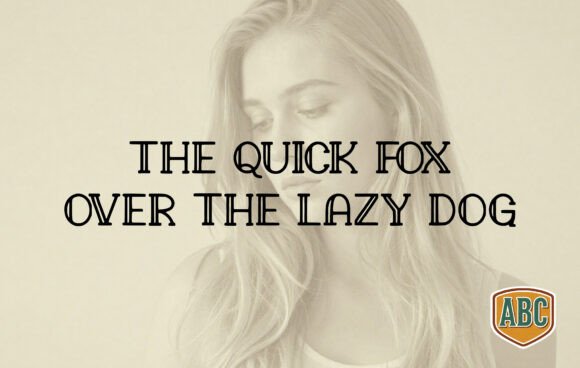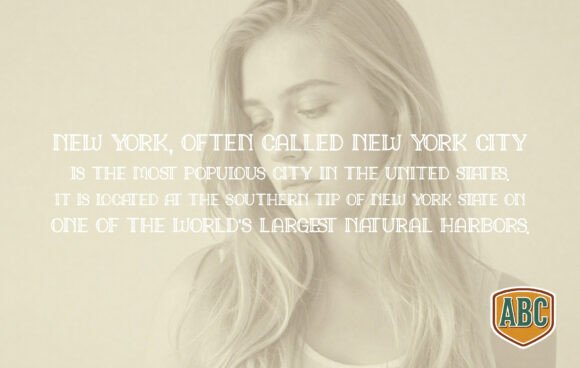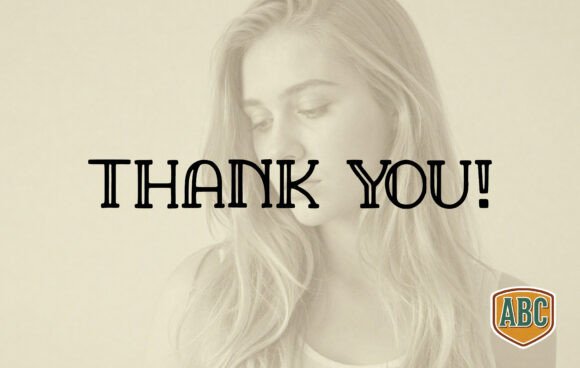
Unleash the Elegance of the Roaring Twenties
Imagine yourself sipping a classic cocktail in a swanky 1920s speakeasy, surrounded by the opulence of Art Deco architecture. As you gaze up at the intricately designed ceiling, the sound of a typewriter clacking away in the background, you can almost hear the whispers of a bygone era. This is the world that the Ivory Font brings to life, a sophisticated and luxurious display typeface that exudes the glamour of a bygone age.
The Ivory Font is more than just a pretty face – it’s a powerful tool for designers looking to add a touch of classic sophistication to their projects. With its double-line strokes and geometric precision, this font is perfect for creating a sense of architectural structure and glamour, making it a must-have for any designer looking to create high-end branding, packaging, or typography.
Ivory Font Key Features
- Font Family: Ivory is a serif font family that is part of the Linotype Library.
- Size: The font family includes a range of font sizes, from 6-point to 72-point.
- Resolution: Designed for high-resolution printing and digital display, with clear readability at 300 DPI and above.
- Unique Characteristics: Ivory is known for its elegant, refined appearance, making it suitable for formal and professional applications, such as business cards, invitations, and publications.
- Language Support: Supports a wide range of languages, including Latin-based languages, Greek, and Cyrillic.
Ivory Font Review
I recently had the chance to work with the Ivory Font, and I must say it’s a decent option for designers looking for a classic, elegant feel. Here’s what I liked about it:
- ✨ Timeless aesthetic: The Ivory Font exudes a sense of sophistication and refinement, making it perfect for high-end branding, luxury products, or anything that requires a touch of class.
- ✨ Versatility: While it’s often associated with formal or traditional designs, the Ivory Font can also work well in more modern or minimalist contexts, especially when paired with the right color scheme.
- ⚠️ Limited versatility in digital: The Ivory Font might not be the best choice for digital interfaces or text-heavy websites, as it can be quite dense and overwhelming in certain situations.
- ⚠️ Limited character set: The font doesn’t come with as many character sets or languages as some other popular fonts, which might be a concern for designers working on multilingual projects.
Overall, the Ivory Font is a solid choice for designers who want to add a touch of elegance to their work. While it has its limitations, it’s a great option for those who need a classic, sophisticated feel without breaking the bank.
Tips for Getting the Most Out of Ivory Font
Here are some tips to get the most out of Ivory Font:
- Pair Ivory Font with a clean and minimalist design for a professional look.
- Use Ivory Font for headings and titles to add a touch of elegance.
Ivory Font is commonly used for:
- Luxury branding and marketing materials.
- High-end fashion and design projects.
Alternatives to Ivory Font
Playfair Display is a high-end, elegant font perfect for luxury brands and upscale designs. It features beautiful swashes and ornaments, making it ideal for invitations, wedding stationery, and high-end packaging. When to use: luxury branding, invitations, and special occasions.
Compared to Ivory Font, Playfair Display is more ornate and luxurious, while Ivory Font has a more minimalist and vintage feel.
Bodoni Moda
Bodoni Moda is a sleek, modern font with a classic feel. It features a bold and elegant design, making it perfect for fashion, beauty, and lifestyle brands. When to use: fashion, beauty, and lifestyle branding, as well as modern packaging and advertising.
Compared to Ivory Font, Bodoni Moda is more modern and sleek, while Ivory Font has a softer and more vintage feel.
Didot is a classic, elegant font with a sophisticated feel. It features a refined and luxurious design, making it perfect for high-end branding, fashion, and luxury goods. When to use: high-end branding, fashion, and luxury goods, as well as special occasions and events.
Compared to Ivory Font, Didot is more classic and refined, while Ivory Font has a softer and more vintage feel.
Garamond
Garamond is a timeless, elegant font with a classic feel. It features a refined and sophisticated design, making it perfect for luxury branding, fashion, and high-end packaging. When to use: luxury branding, fashion, and high-end packaging, as well as books, magazines, and editorial content.